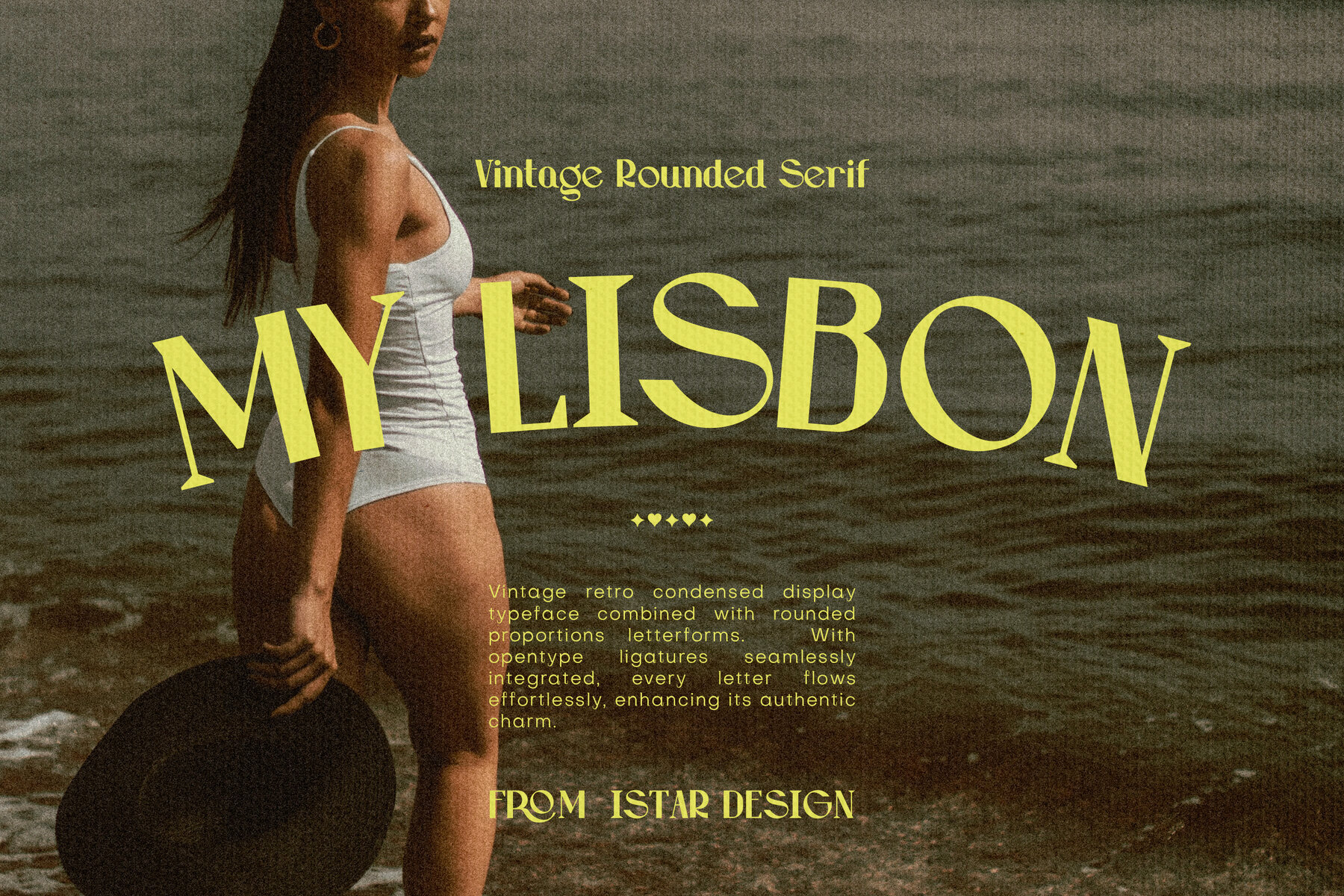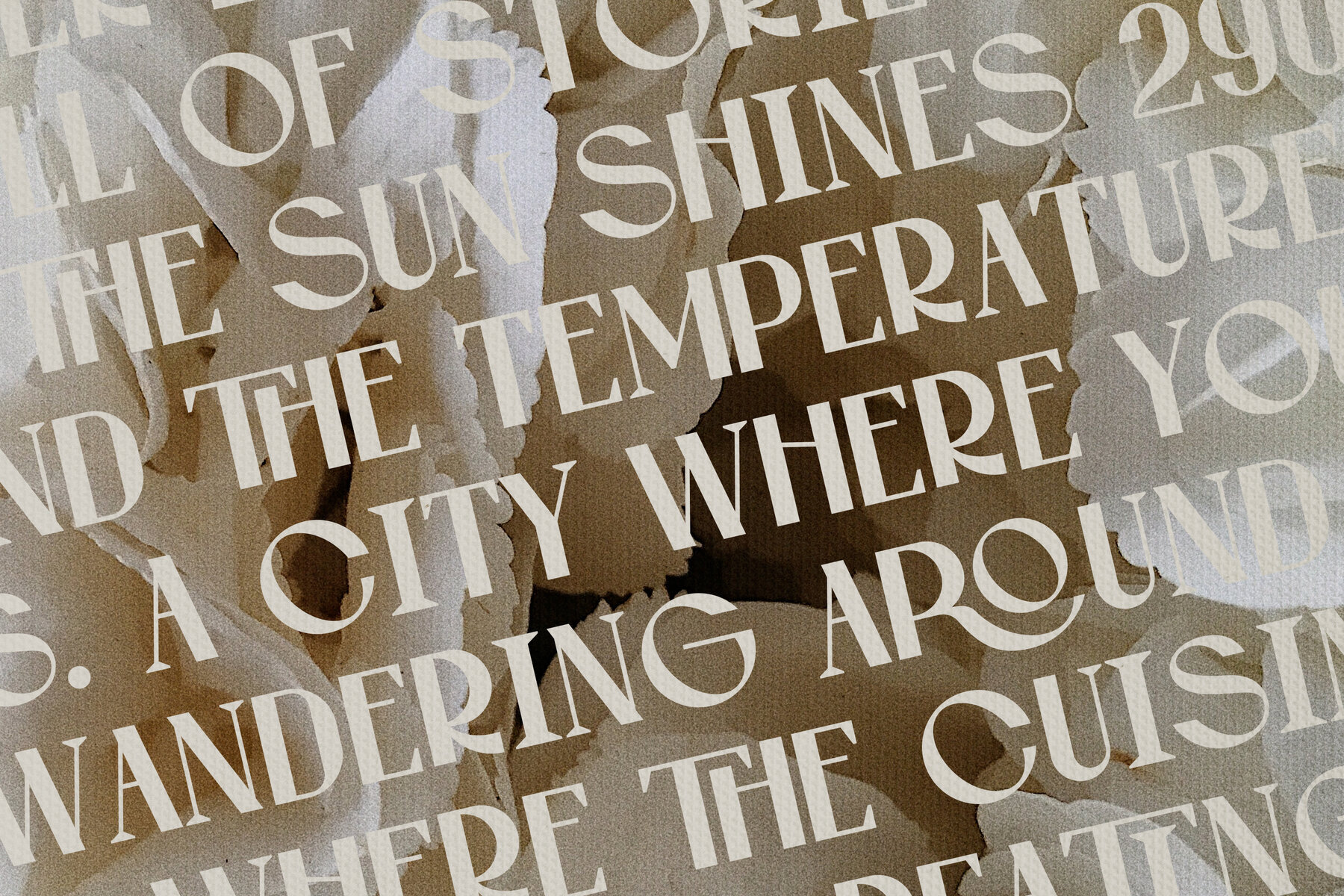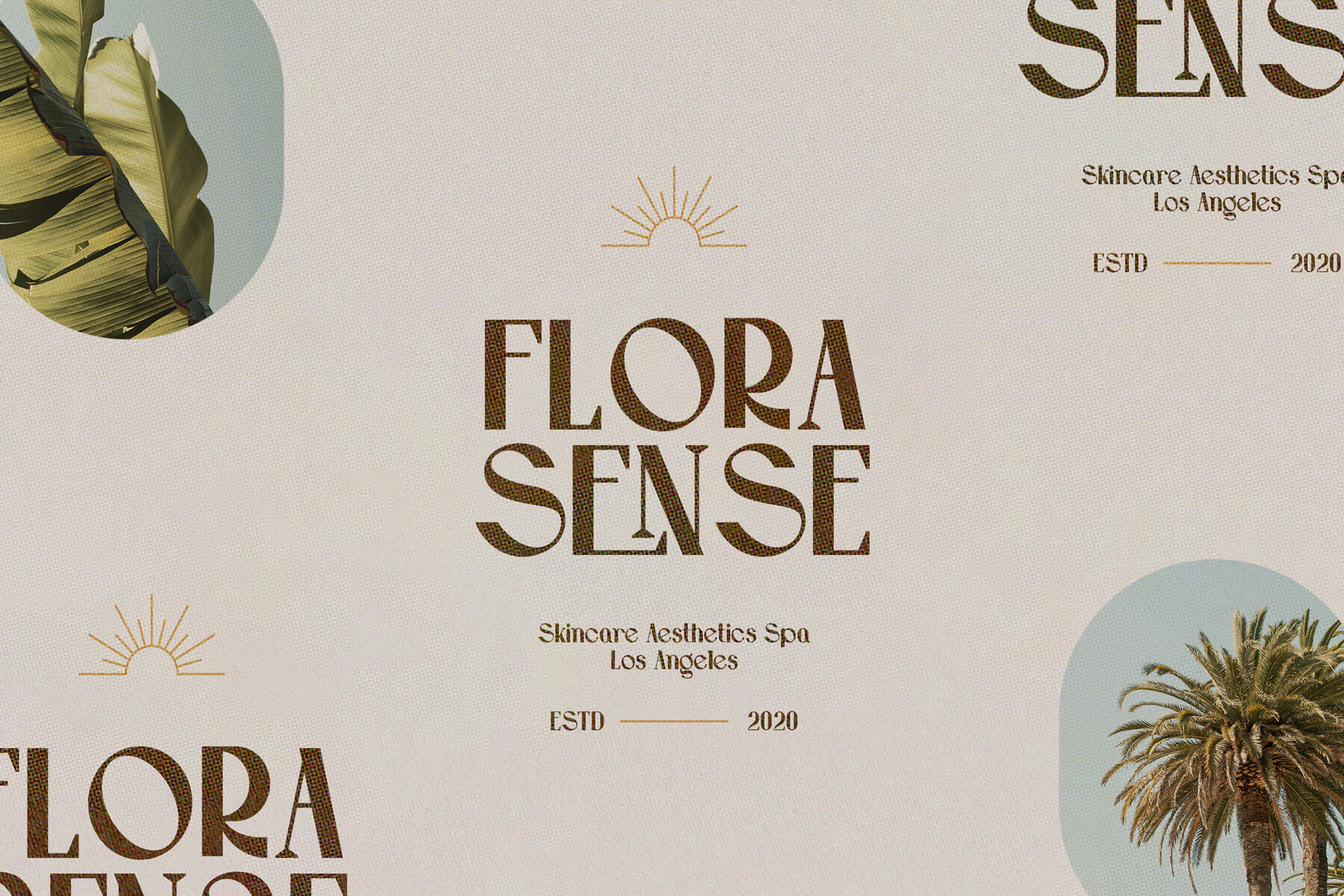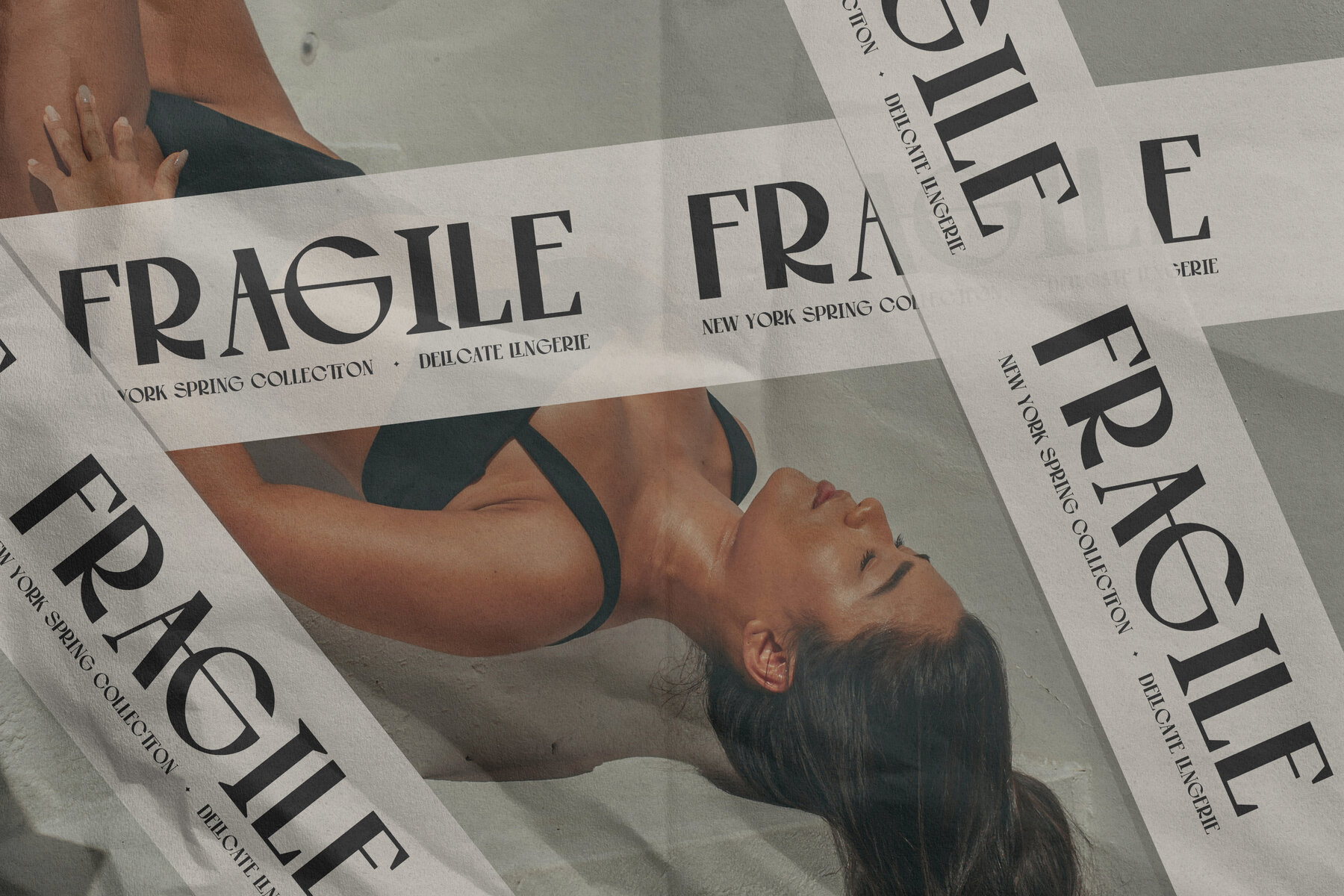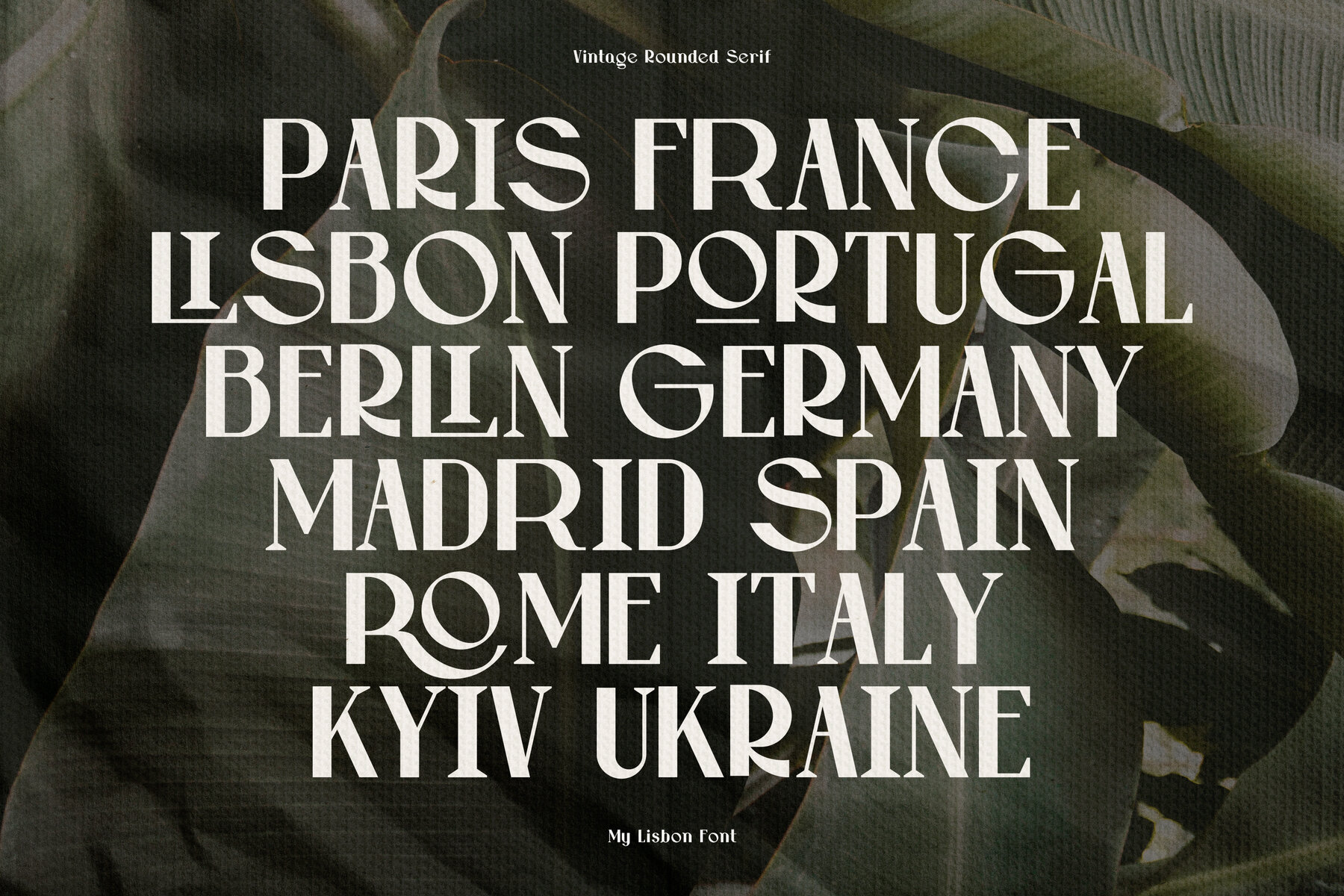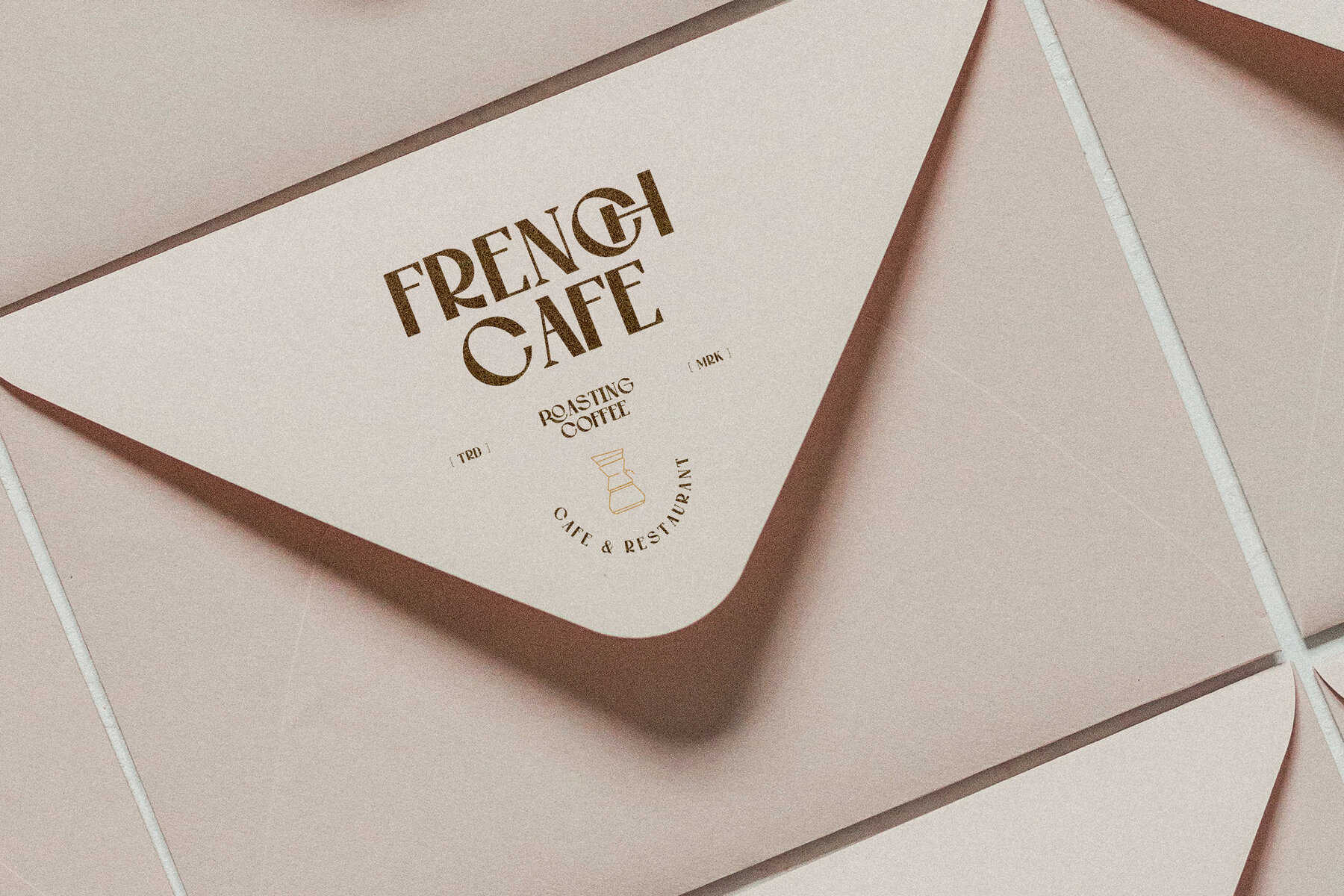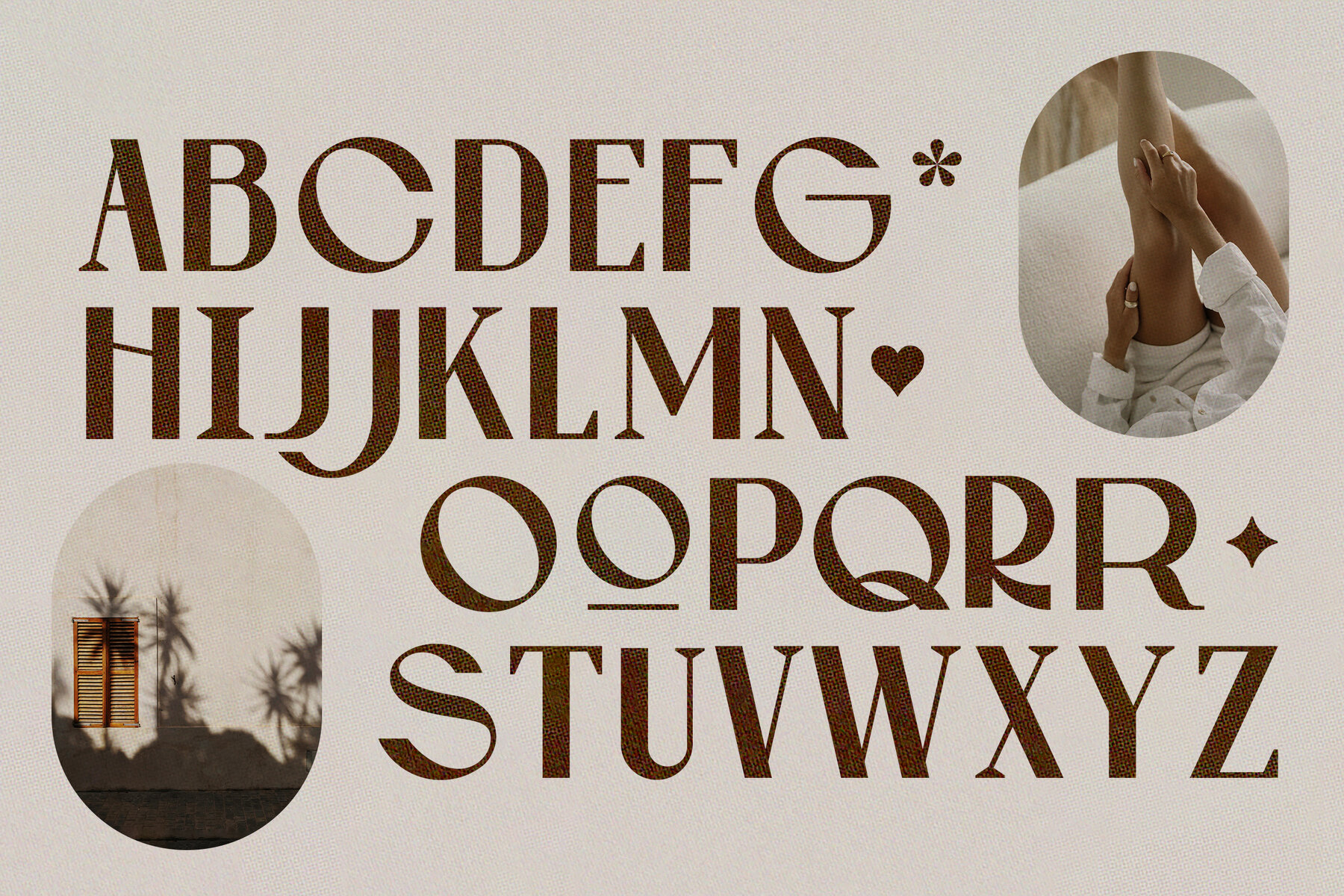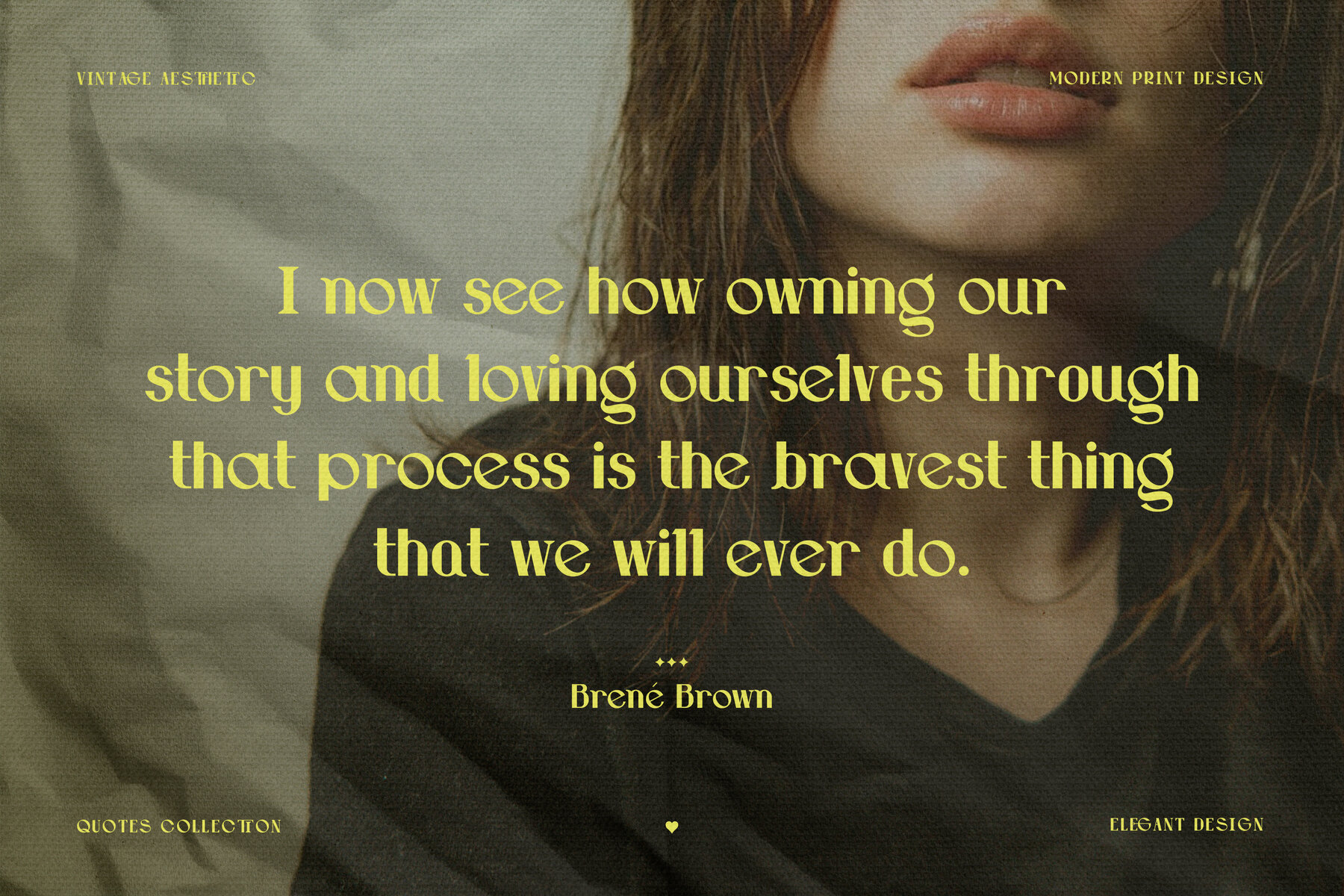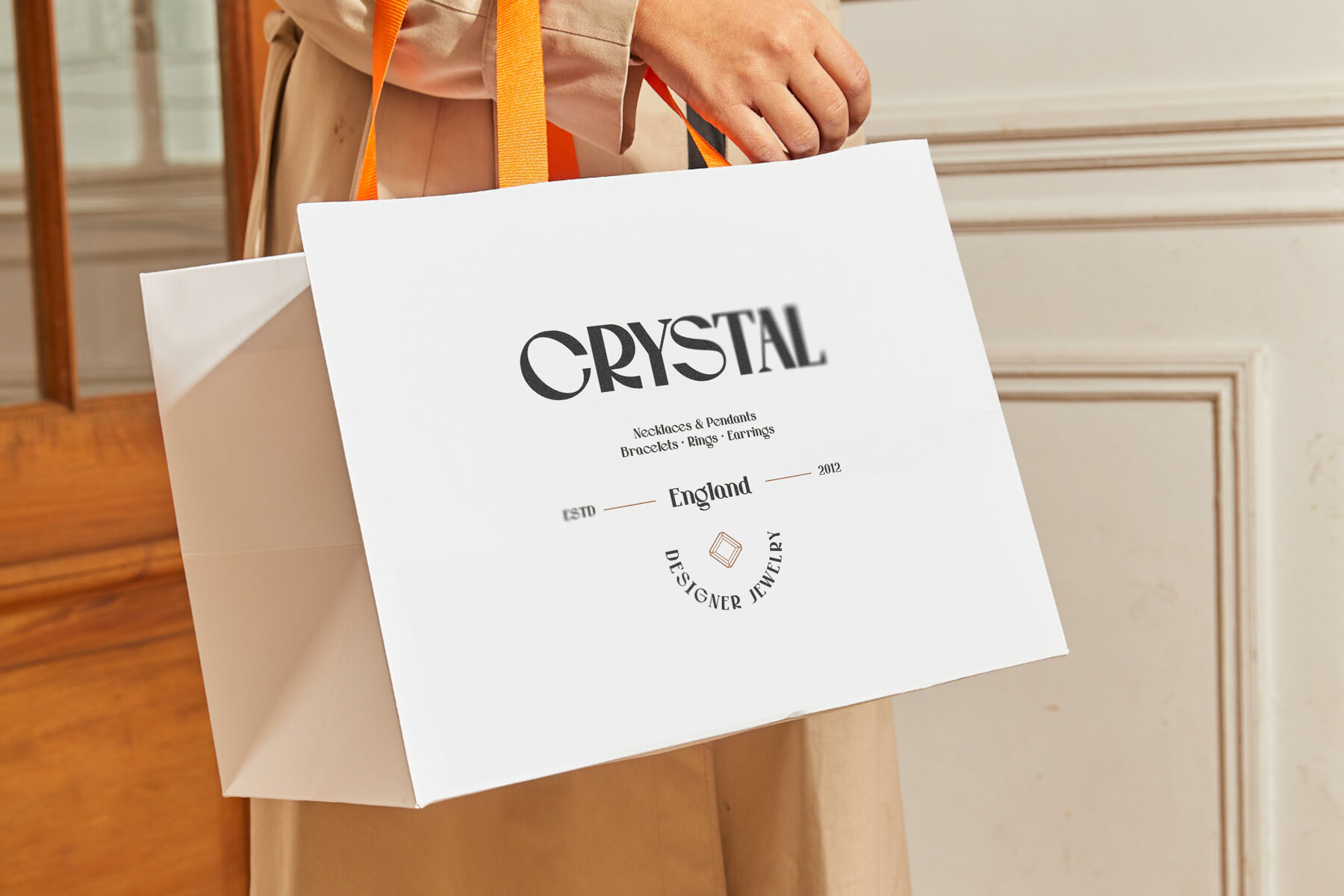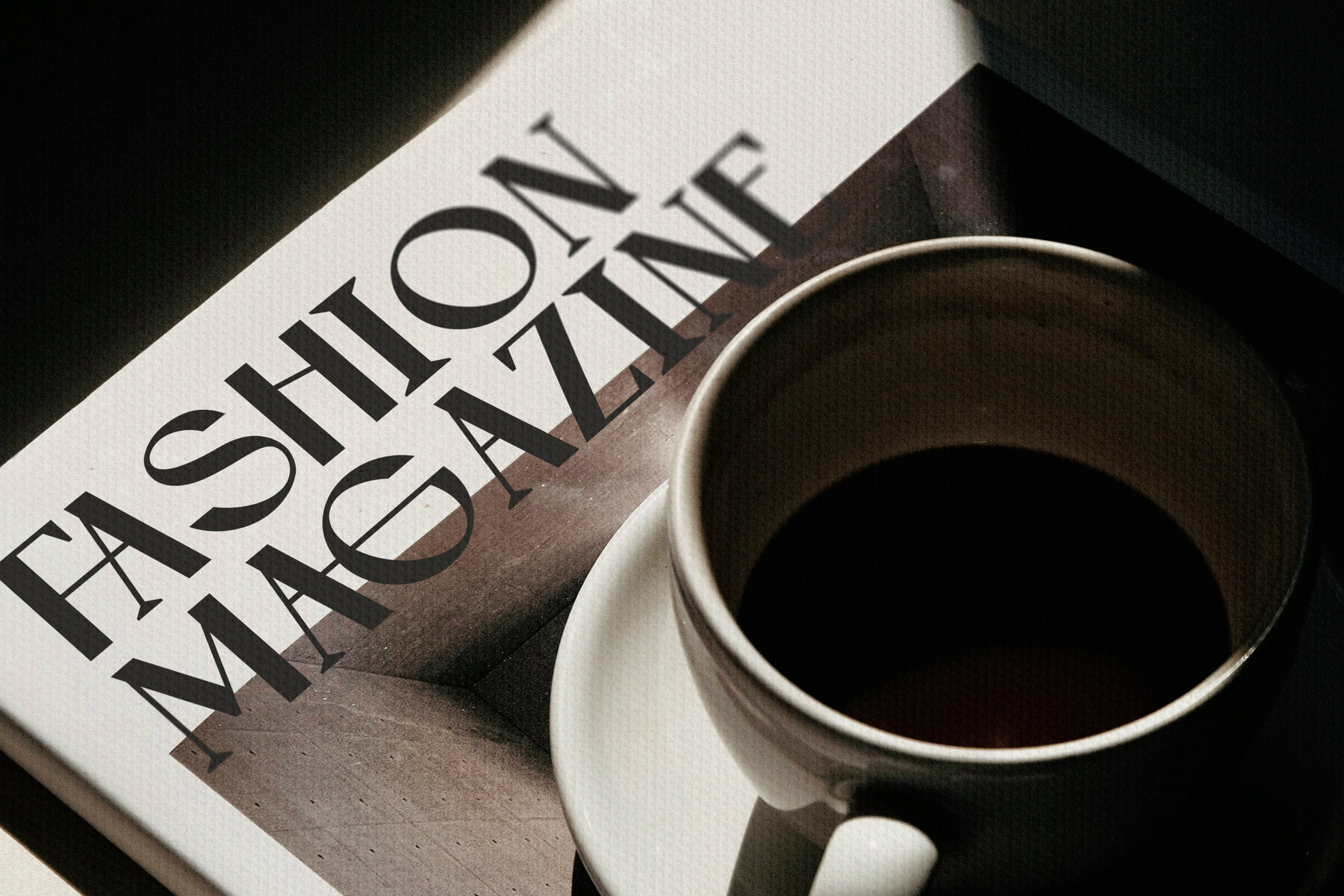
My Lisbon Font
My Lisbon script encapsulates a timeless vintage aesthetic with its condensed display typeface and elegantly rounded letterforms. The integration of opentype ligatures ensures that each letter transitions seamlessly, enhancing its inherent allure. This font is perfect for adding authenticity to your personal journals, professional presentations, or creative projects. Note: Mock-ups are for presentation purposes only and are not included with the purchase. All images are for illustration purposes only.My Lisbon Script: Timeless Vintage Aesthetic